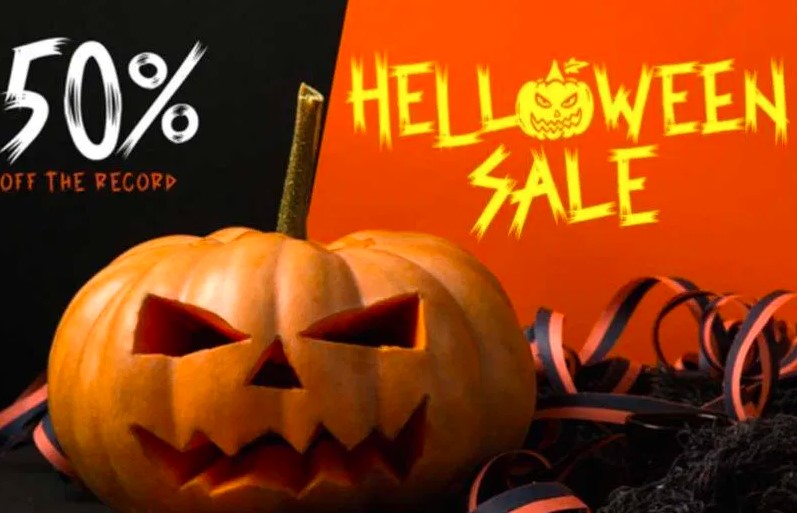
Check out the new Skull pathway font, a fantastic spooky typeface with a wide range of unique characters, ligatures, and sketchy letters perfect for creating banners and posters. This spooky font is available for free for both commercial and personal projects.
We are sharing this great font for you that is best for pairing with the combination of centaur font and copy-pasting purposes but also, you can utilize this font as you want it can be adjusted in all the ways in any type of projects that is the great thing of this beautiful typeface.
If you are curious to know about its characters’ strokes then you can see in the preview below to get an idea about everything that the font has.